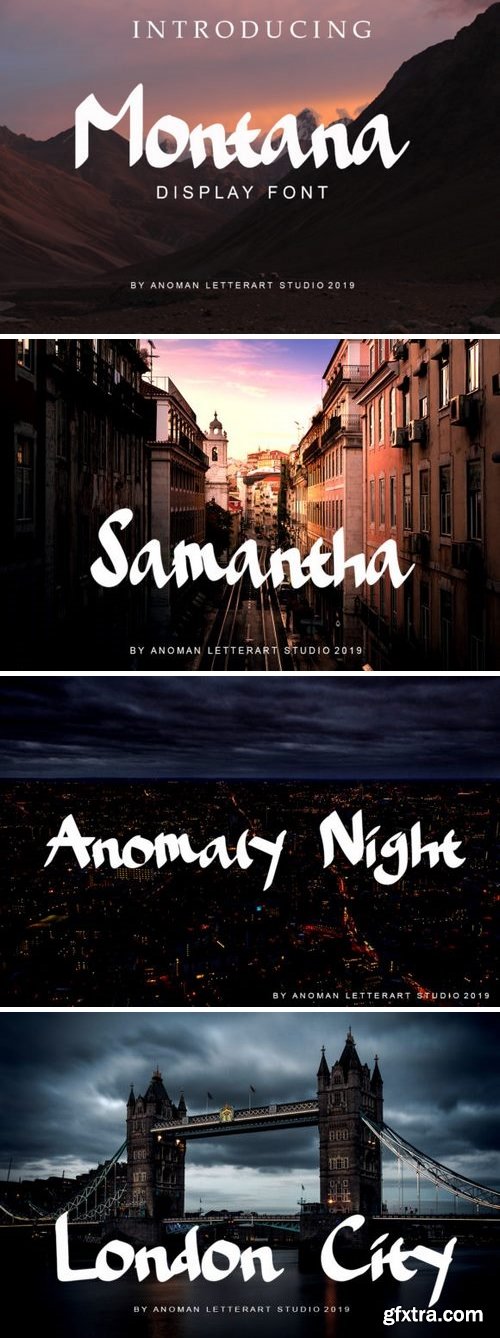
Montana 字体
Montana Font
The Montana is a striking display font. Its bold letters are good for making any design stand out. It can be used for wedding invitations, logos, posters, advertising, signatures, watermarks, and much more!